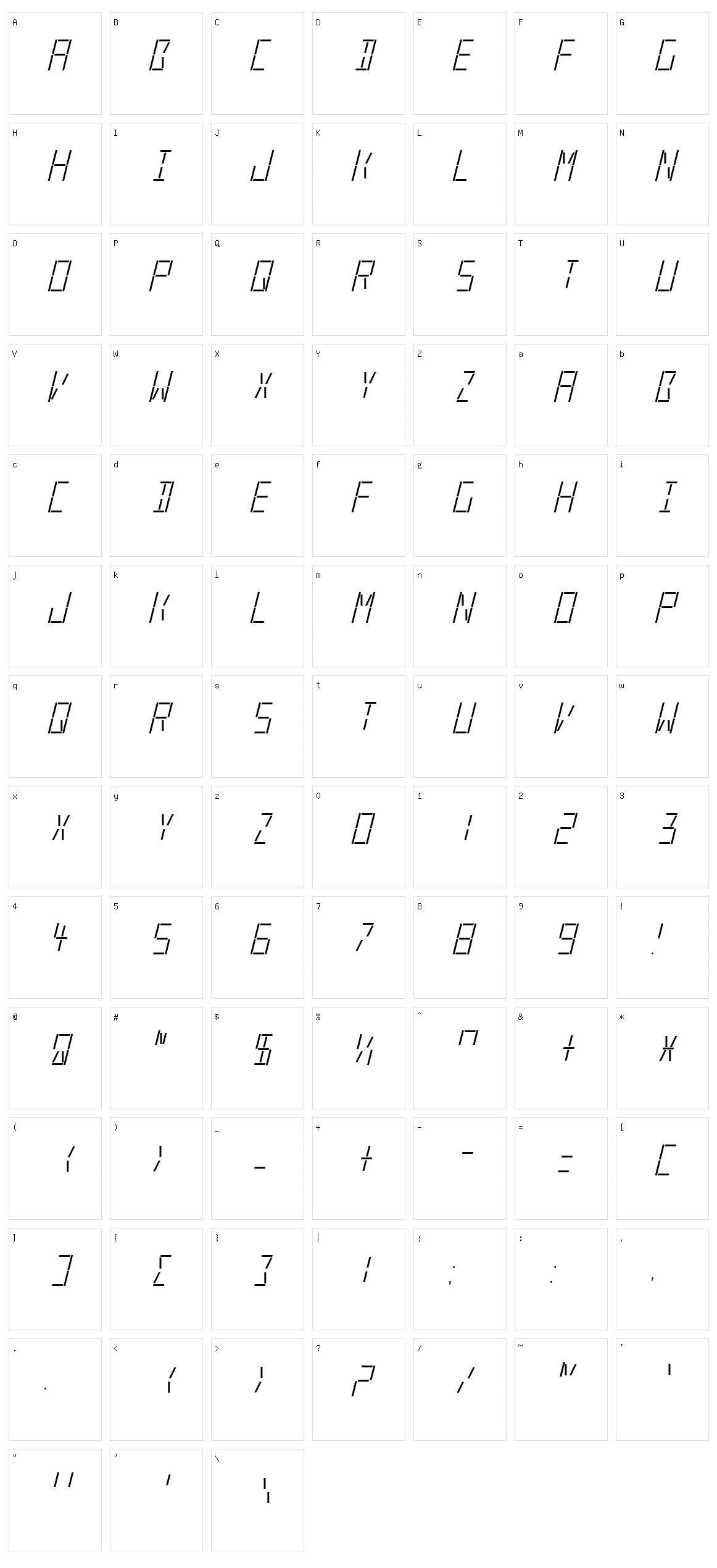
LED Real
Designed by: Matthew Welch
Category: LCD & Futuristic
Font: LED Real
Created By: Matthew Welch
About the font:
Unlike most LED/LCD style fonts mine could be recreated with an
actual LED. I created this font working from memories of the good
old Speak and Spell display. Since I don't have an actual Speak
and Spell to work from I had to just do as well as I could in its
spirit. Be warned that some characters look just like others. The
( and the <, for instance. Also C and [. Most of these will be
pretty clear in context. To see all the sections of the LED "lit
numeric keypad). This font is, of course, monospaced.
I have now added an italic version as well as one with a different
segment layout that was once used in an actual Speak and Spell
simulator (http://sass.retrogames.com).